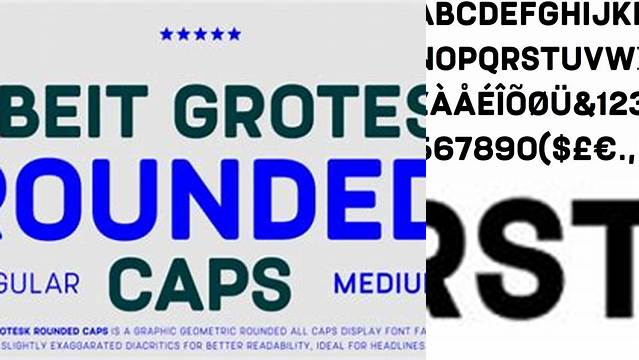
Hey guys! Are you looking for a font that's bold, eye-catching, and a little bit… grotesk? Well, look no further! Albeit Grotesk Rounded Caps Bold is here to spice up your designs. And the best part? You can grab it for free! In this article, we'll dive deep into everything you need to know about this awesome font, including where to download it, how to use it, and some killer design ideas to get you started. Get ready to unleash your creativity!
Albeit Grotesk Rounded Caps Bold Font: A Detailed Overview
Alright, let's get down to the nitty-gritty. Albeit Grotesk Rounded Caps Bold is a display font characterized by its strong presence and rounded terminals. This means the ends of the letter strokes are curved, giving it a softer, friendlier look compared to a traditional grotesque font. The 'bold' in the name tells you it's a heavy-weight font, perfect for grabbing attention. The 'caps' part? Yup, it’s all uppercase, making it ideal for headlines, titles, and anything you want to shout out loud. This font family is a versatile choice, suitable for various design projects, from branding and advertising to posters and social media graphics. It's a font that makes a statement. The design of Albeit Grotesk Rounded Caps Bold is not just about aesthetics; it's about creating visual impact. The rounded terminals offer a unique twist, distinguishing it from its more rigid counterparts. The bold weight ensures high visibility, making it perfect for attention-grabbing headlines and titles. Whether you are a graphic designer, a marketer, or just a creative enthusiast, this font can be a valuable asset in your design toolkit. The font is crafted with precision, ensuring clarity and readability even at larger sizes. Its robust design makes it suitable for both digital and print media, offering consistent performance across various platforms. Understanding its characteristics is key to leveraging its full potential. The font’s bold nature ensures that your message is loud and clear, while the rounded terminals add a touch of approachability. This combination makes it an excellent choice for a wide array of design projects. By understanding these features, you can effectively integrate the font into your designs, creating visually appealing and engaging content that resonates with your audience. This font is more than just a visual element; it’s a tool that can help you express your brand’s personality and message effectively. It's a perfect example of a font that blends functionality with style, making it a go-to choice for many designers.
Albeit Grotesk Rounded Caps Bold Font in Branding: Best Practices
Want to make your brand pop? Albeit Grotesk Rounded Caps Bold can be a game-changer. It's a fantastic choice for logos, website headers, and social media graphics. Its boldness ensures your brand name or message is instantly recognizable. When using it for branding, consider pairing it with a more subtle font for body text to create a visual hierarchy. The all-caps design lends itself well to headlines and taglines, making them stand out. It's perfect for brands that want to appear modern, strong, and a little bit edgy. Using this font effectively in branding requires careful consideration of its characteristics. Ensure that the font aligns with your brand's personality and values. Create a cohesive visual identity by combining this font with other design elements, such as colors, images, and other fonts. The font's bold nature makes it highly visible and memorable. However, avoid using it excessively, as it could become overwhelming. Balance is key to creating a professional and engaging brand identity. Consistency is key to establishing a strong brand presence. Use the font consistently across all your branding materials, from your website to your social media profiles. Make sure the font is legible at all sizes, especially in logo designs. Remember that the font represents your brand and should reflect its overall message. The versatility of the font makes it a versatile tool in establishing a brand identity. Proper use of the font can enhance your brand’s visual appeal.
Designing with Albeit Grotesk Rounded Caps Bold: Tips and Tricks
Let's talk design! Since this is a display font, think big and bold. Use it for headlines, posters, and social media posts where you want to grab attention. Pair it with a clean, sans-serif font for body text to create contrast. Experiment with different colors and backgrounds to see what works best. Don't be afraid to play around with size and spacing to achieve the desired effect. Use this font judiciously. Because of its strong presence, using it sparingly is generally a good idea to prevent overwhelming your audience. This font is an effective tool to enhance your designs. Combine it with the appropriate images and colors to make your designs stand out. Practice and experimentation are important to master its use. Using the font with restraint and clever design choices will make your creations more appealing. Consider the visual impact of your design. This will help you create visually appealing designs and enhance your audience's engagement. Test different layouts and arrangements to optimize your design. Always consider the overall design context. This will help you create harmonious and compelling designs. Effective use of this font can transform your designs. Experimenting with different design elements will help you maximize its potential. Your designs will be more captivating and memorable by paying attention to these factors.
Albeit Grotesk Rounded Caps Bold and Web Design: A Perfect Match?
Absolutely! Albeit Grotesk Rounded Caps Bold can be a great choice for web design, but with a few considerations. It's perfect for website headers, section titles, and call-to-action buttons. Make sure the font size is large enough to ensure readability on all devices. Also, keep in mind that it's an all-caps font, so use it strategically to avoid long blocks of text. Ensure that your website is optimized for a great user experience. Think about the overall user experience, it is crucial in web design. Make sure the font complements your website’s design. Choosing the right font is crucial in creating a visually appealing website. Consider the font's impact on mobile devices. Optimize your website for different screen sizes, ensuring the font remains readable and the design is responsive. Ensure that the font is visually appealing and works well in the overall web design. Proper use of the font in web design can make your website more engaging and user-friendly. Keep in mind the importance of typography in enhancing user experience. Balance the font with other design elements to create a cohesive and visually appealing web design.
Color Combinations for Albeit Grotesk Rounded Caps Bold Font
Color can make or break a design. With Albeit Grotesk Rounded Caps Bold, you've got plenty of options. For a classic look, pair it with black or white backgrounds. For a more vibrant feel, try contrasting colors like blue and orange or green and red. Be sure to consider the overall mood you want to create. Using the correct color palettes will enhance the visual appeal. Consider the color psychology and how it affects your design. Experiment with different color schemes and combinations to discover what best suits your brand’s needs. Choose colors that align with your brand’s identity and the message you want to convey. Think about the contrast between the font and the background. This ensures readability and visual appeal. Play with different color combinations. This will make your designs more visually appealing. Evaluate different color combinations to maximize visual impact. This will help you create memorable and visually appealing designs.
Albeit Grotesk Rounded Caps Bold Font and Social Media
Social media is a visual playground, and Albeit Grotesk Rounded Caps Bold is a great tool to make your content stand out. Use it for creating eye-catching headlines on your posts, creating visually stunning graphics, and designing engaging social media ads. Its bold nature ensures that your message is visible, even when scrolling through a busy feed. By using this font, you can create visually appealing and memorable social media content. Experiment with different color schemes and backgrounds to enhance the visual impact of your posts. Use the font consistently across all your social media channels to create a recognizable brand identity. Ensure the font is legible and visually appealing, and resonates with your audience. This font will help you increase engagement on social media. Experiment with different layouts and designs. This will improve the overall user experience. Ensure that your social media graphics and content stand out. Your content will be more shareable and generate more engagement.
- Q: How do I pair this font with other fonts?
- A: Pair it with a clean, sans-serif or serif font for body text to create contrast. Mixing and matching fonts creates a visually appealing design. Complementary font pairings enhance the design.